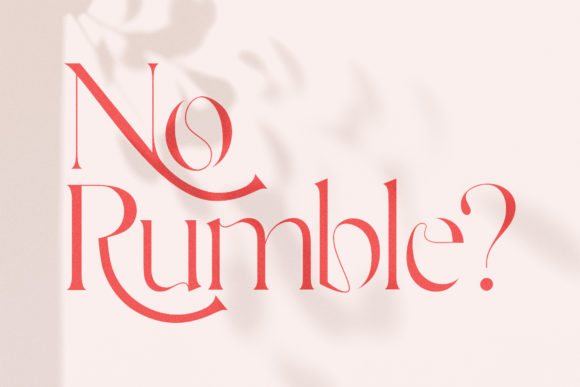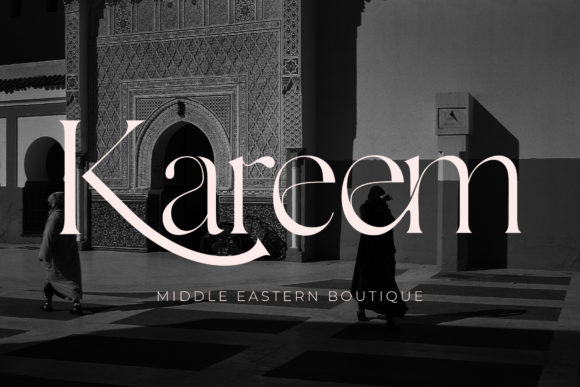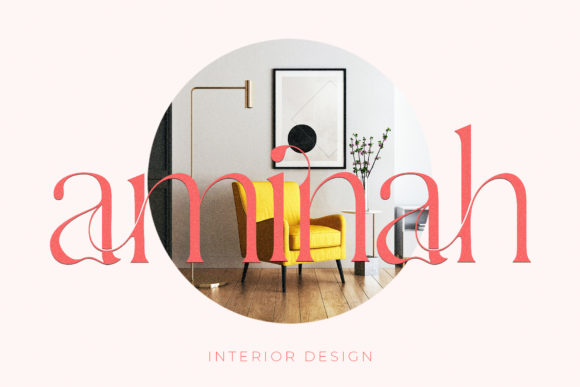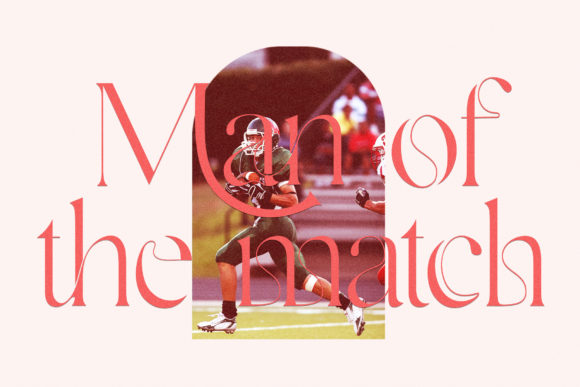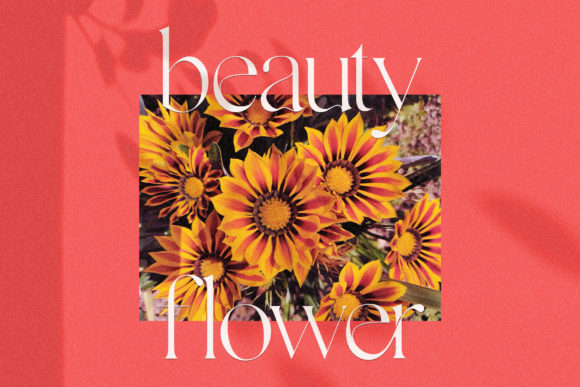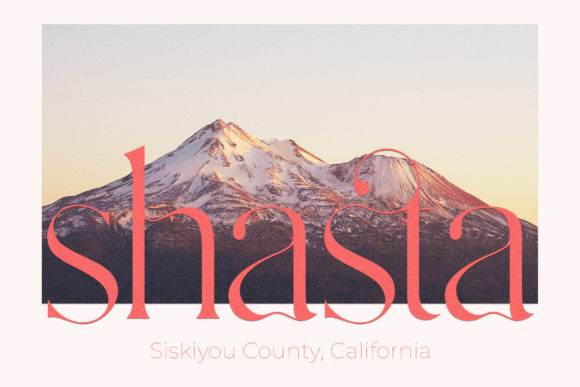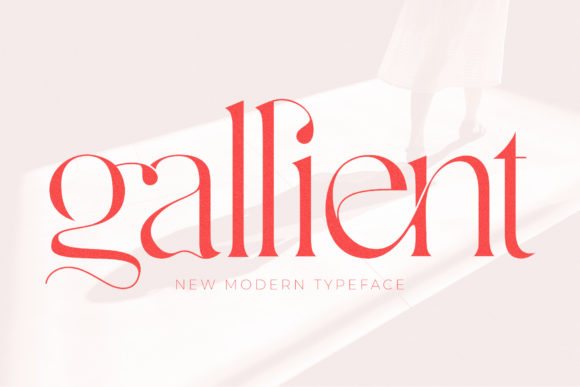
Gallient Font: Elevate Your Designs with Elegance and Sophistication
In the world of typography, fonts play a crucial role in conveying the tone and aesthetic of a design. For designers and crafters seeking a font that embodies elegance, modernity, and minimalism, Gallient Font is an exceptional choice. This stunning serif font is designed to bring a touch of sophistication to any project, making it perfect for those who strive for clean, beautiful, and refined design styles.
The Essence of Gallient Font
Gallient Font is an elegant serif font that stands out for its clean lines, modern feel, and minimalist approach. Its design is carefully crafted to provide a sense of luxury and refinement, making it suitable for a wide range of applications, from high-end branding and advertising to editorial design and digital media.
Key Features of Gallient Font
• Elegant Serif Design: Gallient Font boasts a sophisticated serif design that adds a touch of elegance to any project.
• Clean and Modern: Its clean lines and modern feel make it perfect for designs that require a contemporary aesthetic.
• Minimalist Approach: The font’s minimalist design ensures that it complements a wide range of design styles without overpowering them.
• PUA Encoded: Gallient Font is PUA (Private Use Area) encoded, which means that users can easily access all the glyphs and swashes, offering greater flexibility and creativity in design.
Advantages of Using Gallient Font
Choosing Gallient Font for your design projects comes with numerous benefits:
• Versatility: Its elegant and modern design makes it versatile for use in various projects, including logos, headings, and body text.
• Readability: The font’s clear and clean lines ensure excellent readability, making it suitable for both digital and print media.
• Customization: With PUA encoding, designers have access to a wide range of glyphs and swashes, allowing for extensive customization to fit specific design needs.
• Time-Saving: The font’s comprehensive design and encoding save designers time in creating custom typography, allowing for more focus on overall design creativity.
Applications of Gallient Font
Gallient Font’s versatility and elegance make it suitable for a variety of design applications:
• Branding and Logo Design: Create memorable and sophisticated brand identities with Gallient Font.
• Advertising and Marketing: Elevate your advertising and marketing materials with a font that captures attention and conveys luxury.
• Editorial Design: Use Gallient Font in magazines, newspapers, and digital publications to add a touch of elegance and professionalism.
• Digital Media: Enhance your website, app, or game design with a font that offers both aesthetic appeal and readability.
Gallient Font is a remarkable addition to the world of typography, offering designers and crafters a tool to elevate their designs with elegance, sophistication, and modernity. Its clean lines, minimalist approach, and PUA encoding make it a versatile and practical choice for a wide range of projects. Whether you’re working on branding, advertising, editorial design, or digital media, Gallient Font is poised to become your go-to choice for creating visually stunning and effective designs.